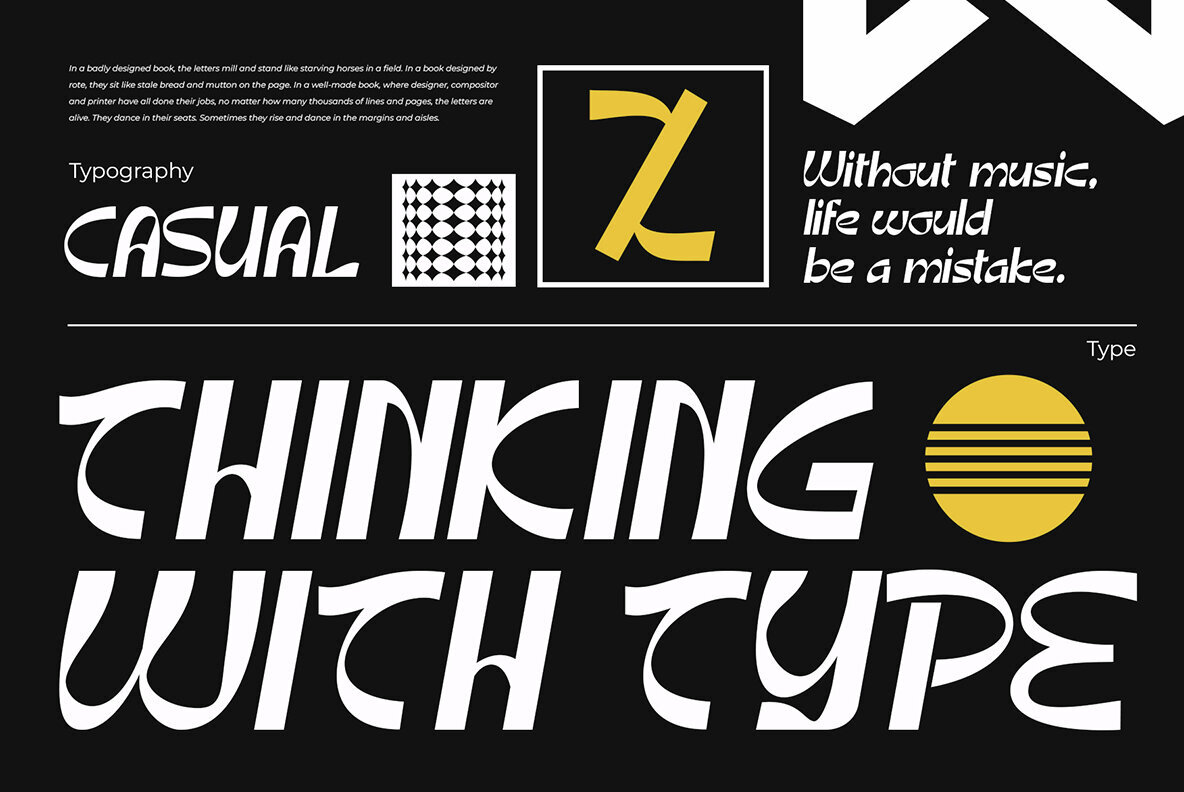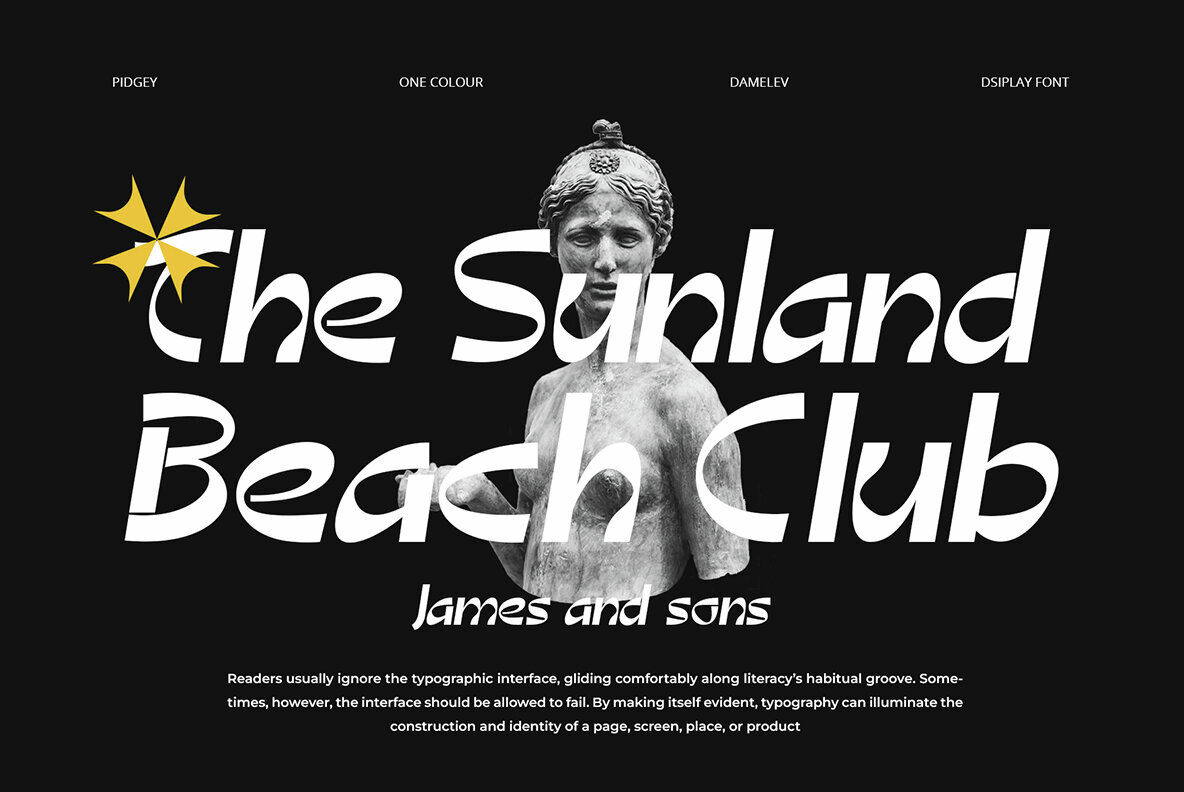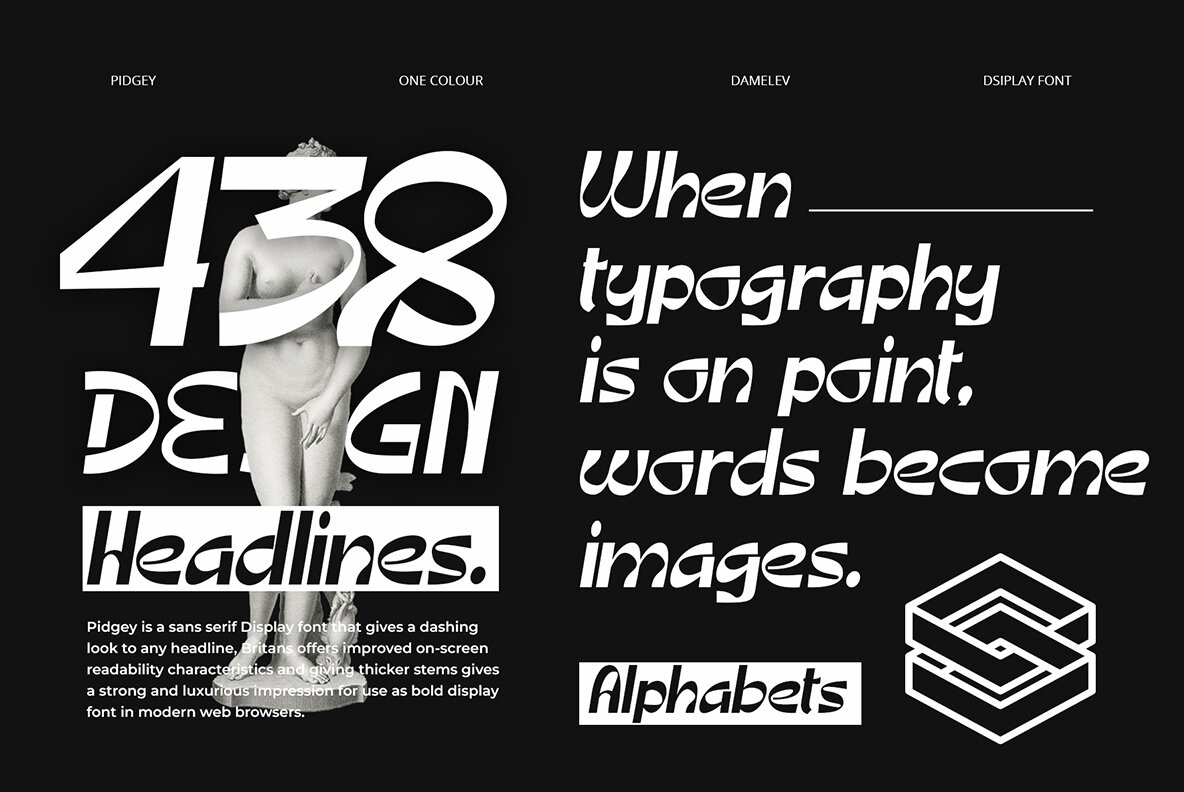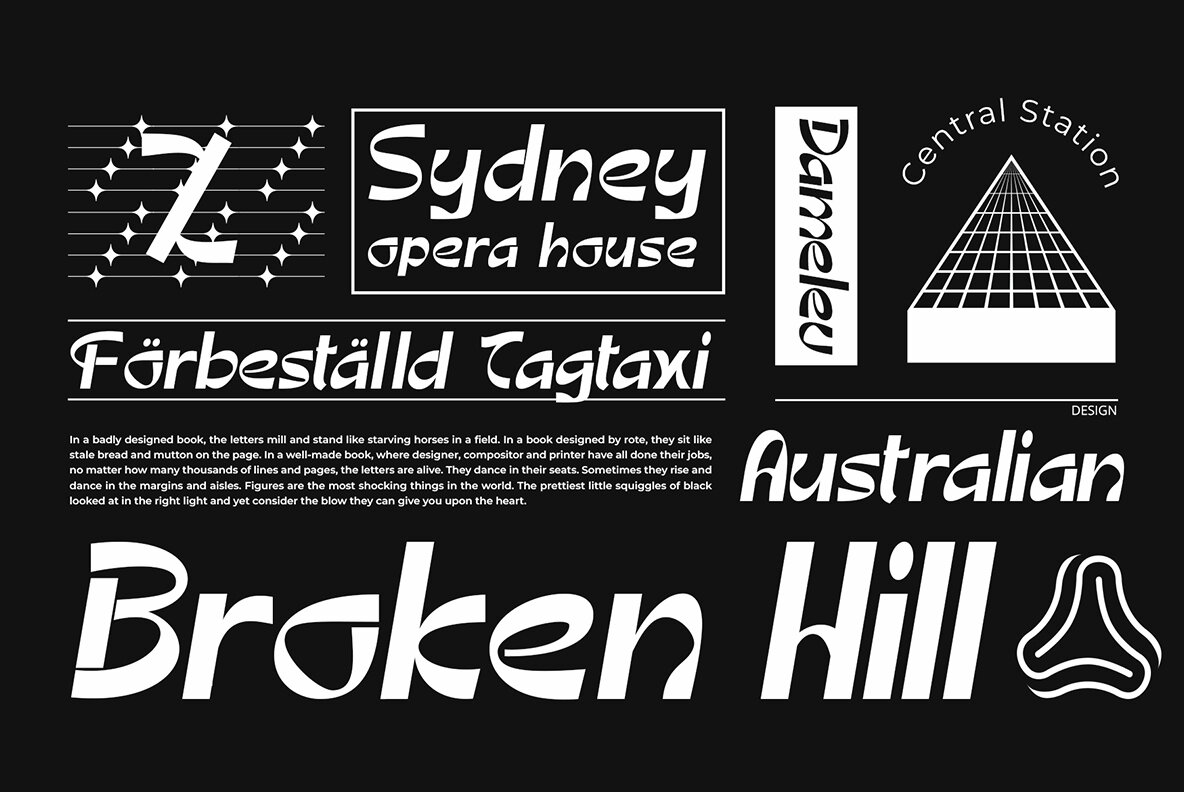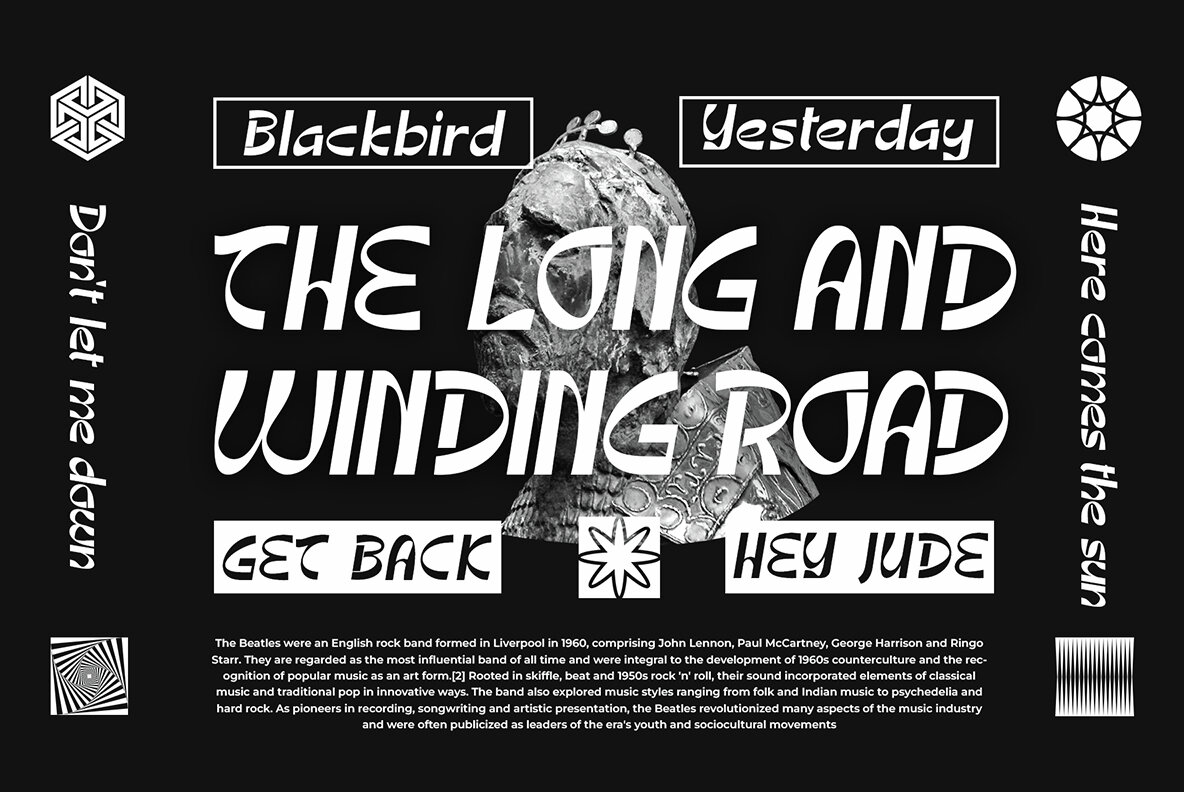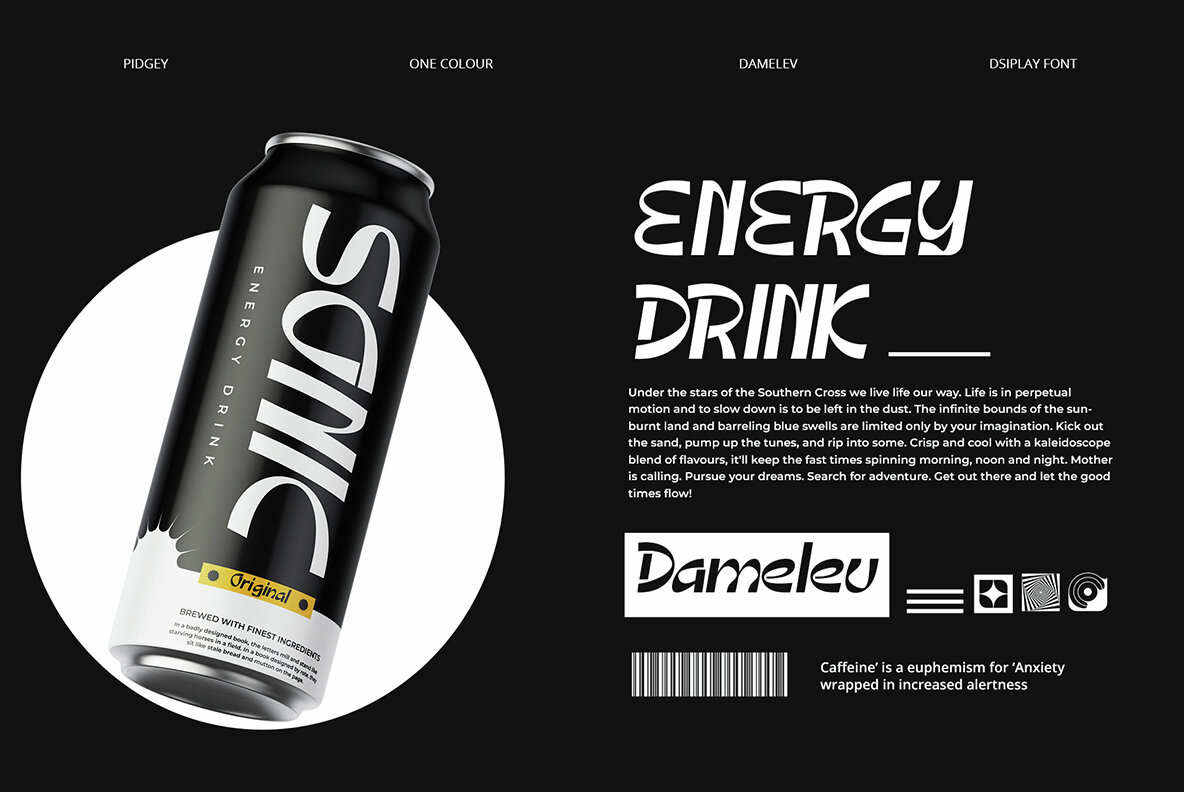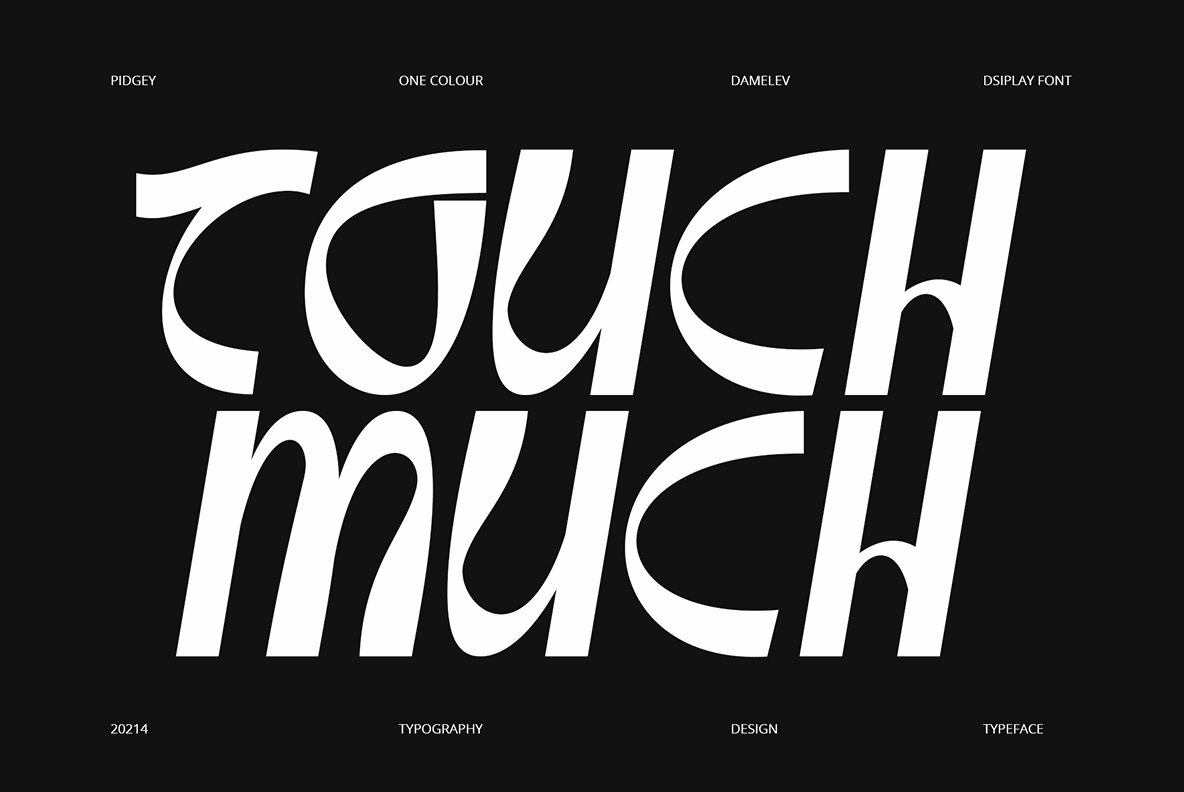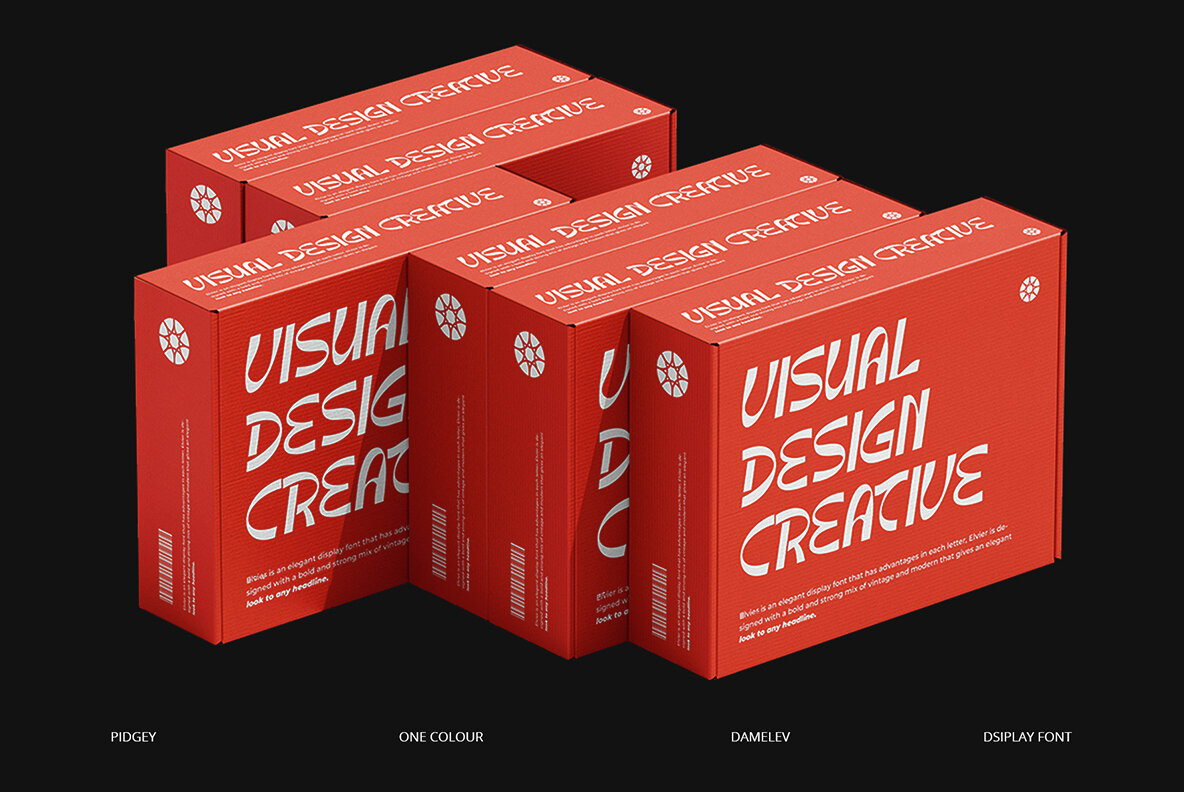
Pidgey Font
Pidgey Regular
Pidgey Display is a bold and heavy font that excels in the "twisted shape" category. With high contrast and wide, extended forms, it captures attention at any size but shines brightest in larger formats where its unique blend of restraint and passion can be fully appreciated. This makes it ideal for creative projects such as logos, T-shirt designs, badges, invitations, packaging, headlines, posters, magazines, greeting cards, and wedding invitations.
The font's OpenType features and multilingual support are accessible through popular Adobe programs such as InDesign, Illustrator, and Photoshop. Its versatility and distinct design ensure that it will make a striking impact on any project, providing both readability and visual interest. Perfect for designers looking to add a bold statement to their work, Pidgey Display offers the perfect balance of style and functionality.